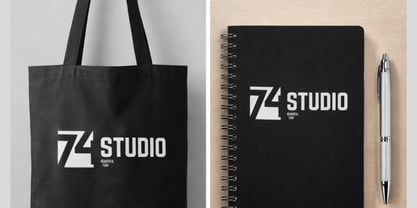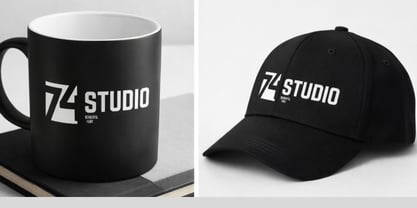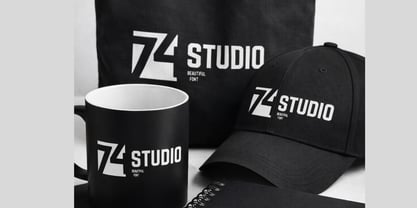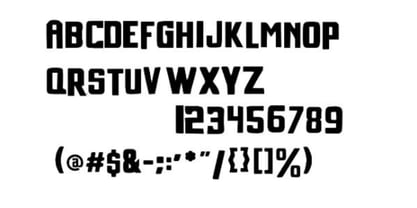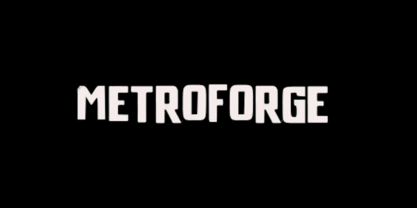
Metroforge
The Metroforge Font Family was designed by Muhammad Abdullah and published by Zyphoria. Metroforge contains 1 styles. More about this family
Metroforage is a sleek, modern display typeface designed to make your text stand out. With clean lines, smooth curves, and balanced spacing, it delivers elegance and readability in every design. Ideal for logos, branding, posters, social media graphics, t-shirt prints, and headlines, Metroforage brings a bold yet versatile style to both digital and print projects. Its unique letterforms give your designs a distinctive edge while maintaining a professional look. This typeface pairs beautifully with minimal sans-serif fonts for body text, creating harmonious and eye-catching compositions. Metroforage was crafted to offer designers a contemporary, stylish, and highly functional font suitable for a variety of creative applications.